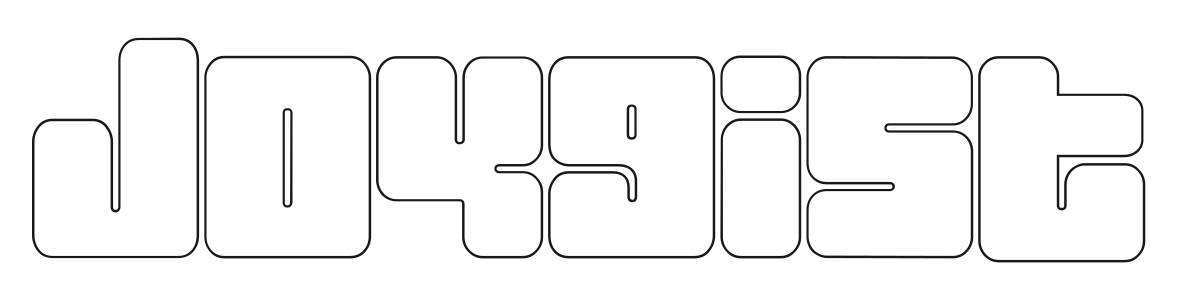
Joygist
Joygist is a chunky outline display font built on wide, rounded geometric forms with a retro-futuristic feel. Every character is large and boldly shaped with heavily softened corners, giving it a bubbly, inflatable look that sits somewhere between 1970s arcade signage and modern gaming aesthetics. It works best big, where the inline outline treatment reads clearly as a headline or logo treatment.